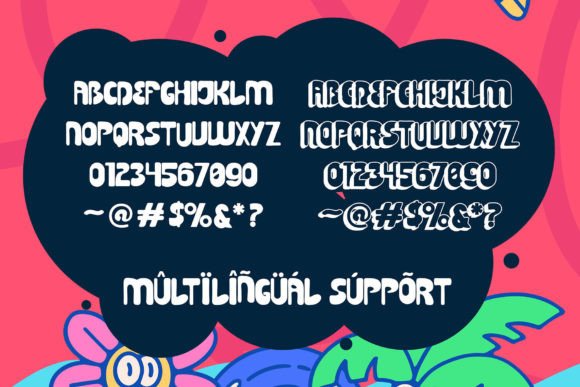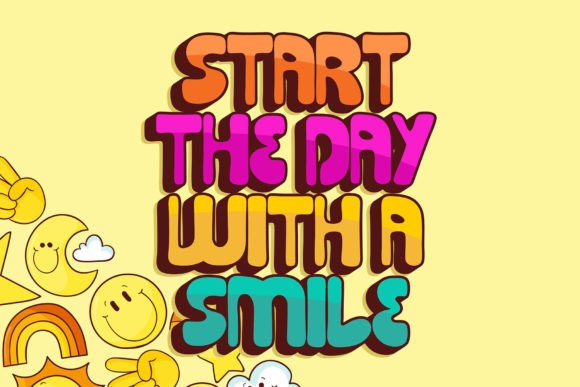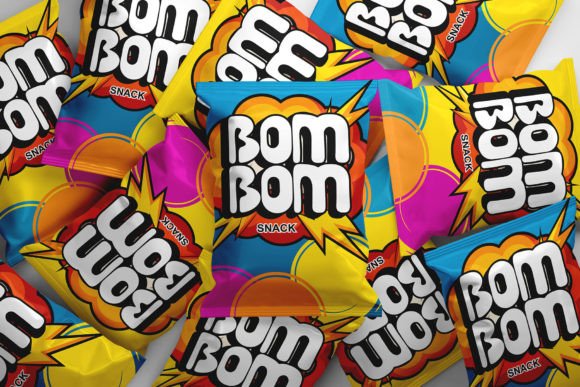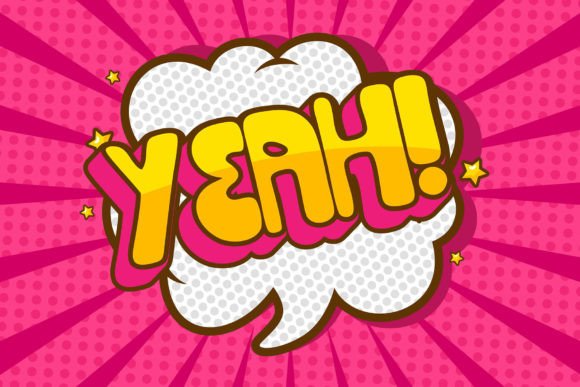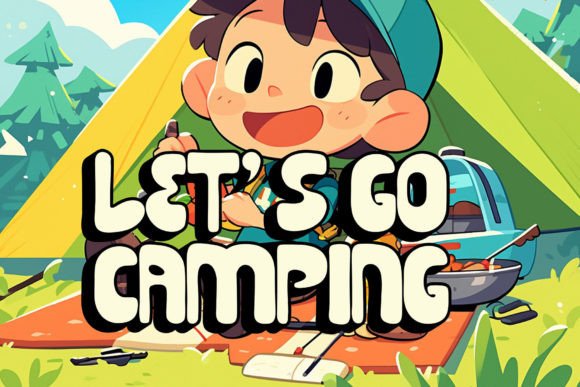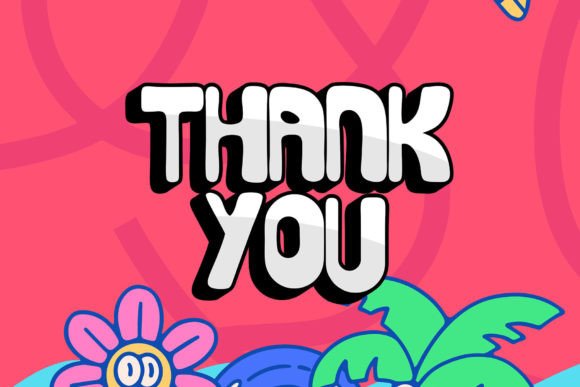
Introduction to Dorman Display Font
Emanating a youthful zeal, Dorman Display is a delightfully inventive display font, crafted to inject your projects with an essence of fun and creativity.
Possessing a brightly spirited style and a cast of whimsical characters, it perfectly complements childrenโs narratives, vivacious posters, festivity invitations, or any design needing a hearty dash of energy and life Its distinctive, attention-grabbing design infuses a dynamic and exuberant vibe into your text, setting it apart to seize your readerโs gaze.
Key Features of Dorman Display Font